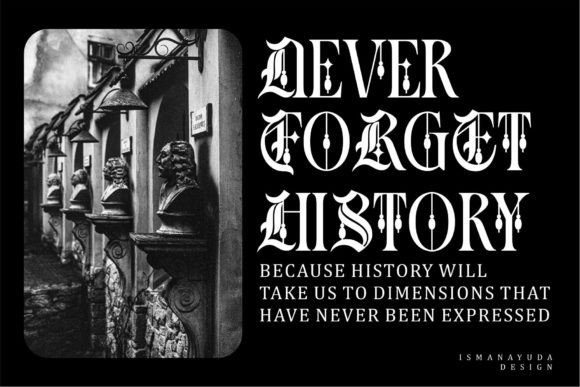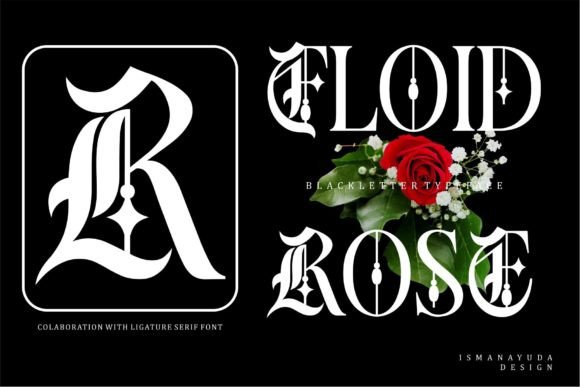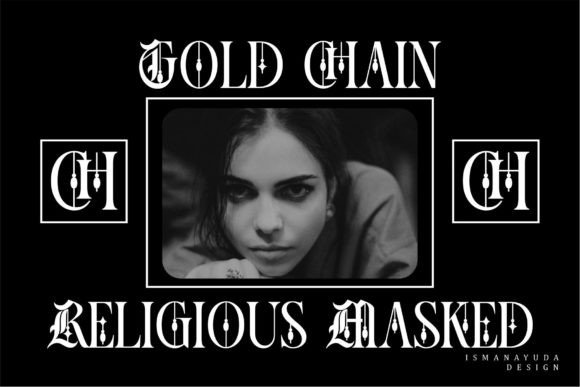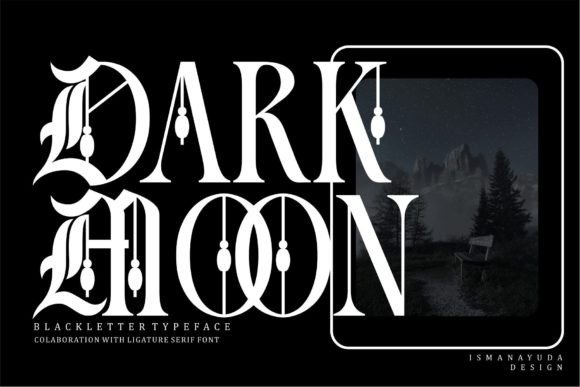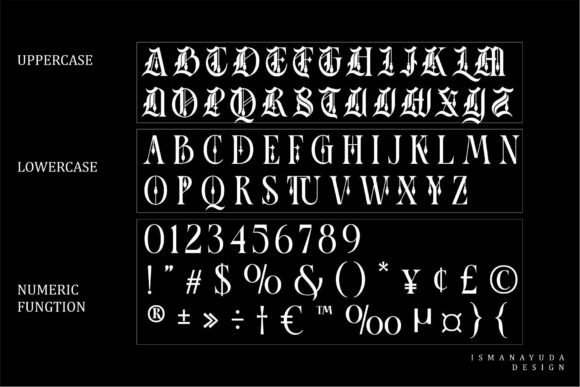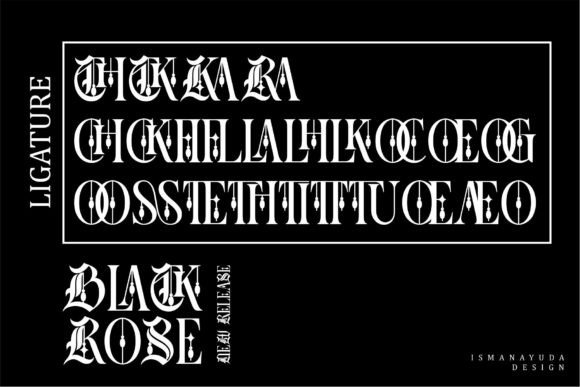
The Enchanting Black Rose Font: A Designer’s Delight
I still remember the project that led me to discover the captivating Black Rose Font. I was working on a design project that required an elegant, yet mysterious touch. As I scoured the internet for the perfect font, I stumbled upon Black Rose, and it instantly stole my heart. Its unique blackletter style, complete with decorative serifs and ligatures, added a touch of sophistication to my design that I’d never seen before.
An Honest Review: The Good and the Quirky
What I Love About Black Rose Font
• ✨ Elegant blackletter design with decorative serifs
• ✅ Connects letters with ligatures for a unique, old-fashioned look
• 💫 Perfect for designs that require a touch of mystery and sophistication
• 🎨 Highly versatile, suitable for various design projects, from invitations to branding
While Black Rose Font is a stunning addition to any design project, it’s not without its quirks. For instance:
• 🤔 Some letters may appear too ornate or busy for certain designs
• ⚠️ Limited use of uppercase letters, which may not be ideal for all projects
The Story Behind Black Rose Font
The story behind Black Rose Font is one of inspiration and creativity. According to its designer, the font was inspired by traditional blackletter calligraphy and the beauty of old-fashioned typography. The goal was to create a font that would evoke a sense of mystery and sophistication, while still being highly legible and versatile.
Q: What type of projects is Black Rose Font best suited for?
A: Black Rose Font is perfect for designs that require a touch of elegance and mystery, such as invitations, branding, and packaging.
Q: Is Black Rose Font available in multiple languages?
A: Yes, Black Rose Font supports multiple languages, including English, French, German, and Spanish.